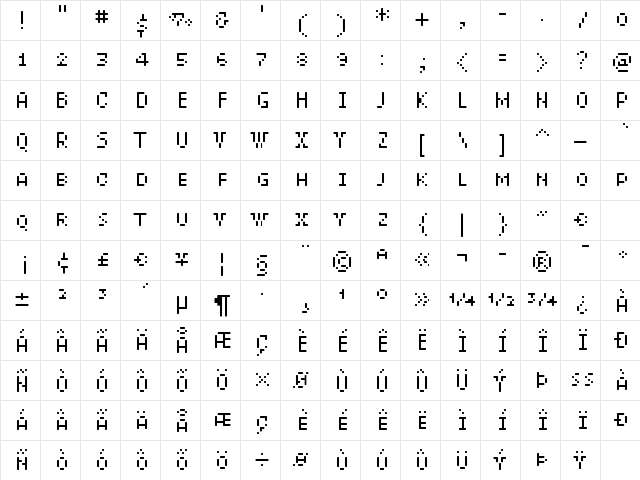
LRMinusNine NarrowSC
| Designer | Zuzana Licko |
Design Context for LRMinusNine Typeface
LRMinusNine is a composed and adaptable typeface that performs quietly and consistently across a wide range of design contexts. The condensed width makes it efficient for tight spaces without sacrificing legibility.